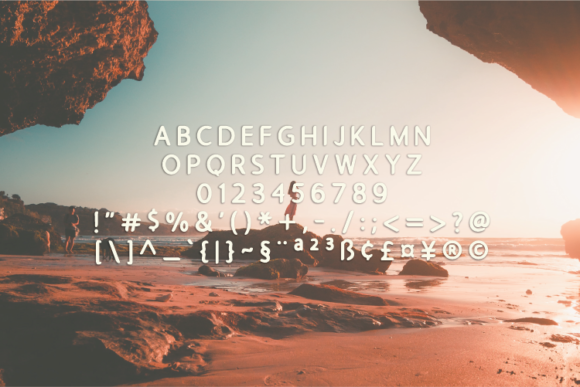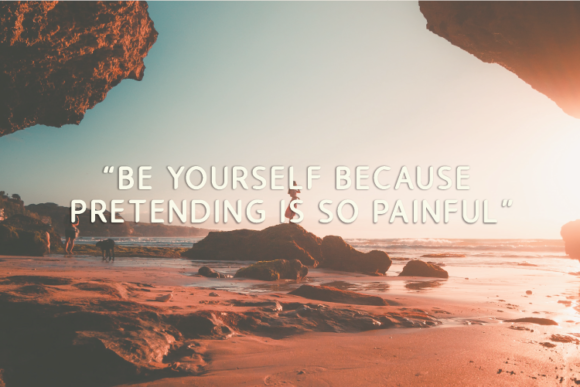
Introduction to Looplers Font
Have you ever been working on a creative project, staring at a blank canvas, and suddenly, the perfect font pops into your mind? It’s that moment when everything clicks, and you know exactly what your design needs. For designers, finding the right font can be a game-changer. It’s what sets your project apart and gives it that extra oomph. One such font that’s sure to make your design shine is the Looplers Font.
Key Features of Looplers Font
- High-quality, professional font design perfect for creative projects
- Unique, handcrafted design with intricate details and subtle nuances, making it an excellent choice for designers seeking a distinctive look
Honest Review: Looplers Font
I recently stumbled upon the Looplers Font, and I must say it’s been a game-changer for my design projects. As a designer, I’m always on the lookout for high-quality fonts that can elevate my work to the next level.
- Beautiful, hand-drawn style that adds a touch of whimsy to any design project
- High-quality design that’s perfect for creative projects, from branding to editorial design
- Limited character set, which can make it tricky to use in longer blocks of text
Overall, I’m really impressed with the Looplers Font. It’s a fantastic addition to my design library, and I’ve already used it in several projects. If you’re a designer looking for a unique, high-quality font, I highly recommend giving it a try.
Looplers Font is a versatile design resource that can be used for a variety of creative projects, including logos, social media graphics, and presentations. Its high quality and transparent background make it an ideal choice for designs that require a clean and modern look.